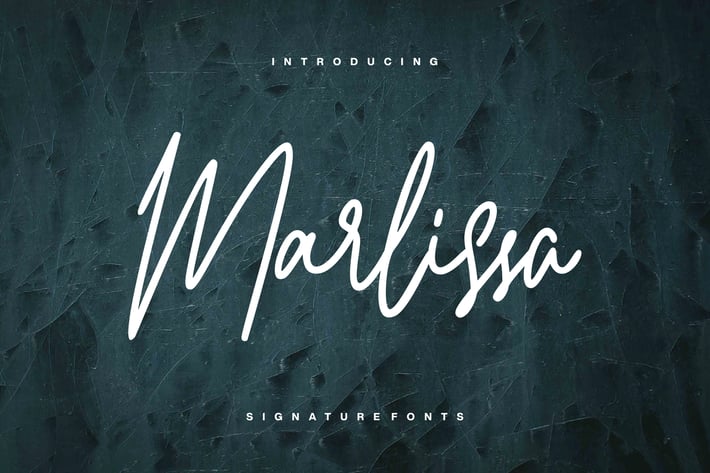
Marlissa - Signature Font
Are you looking for an elegant signature font? We can help! Try to download our Marlissa Signature font. The font is suitable to use for all all purpose. Try to use it on Wedding invitation, greeting card, poster, quotes, postcard, photography, branding, editorial, and signature to see the best of it :)